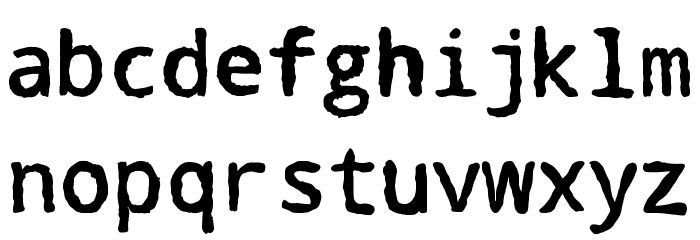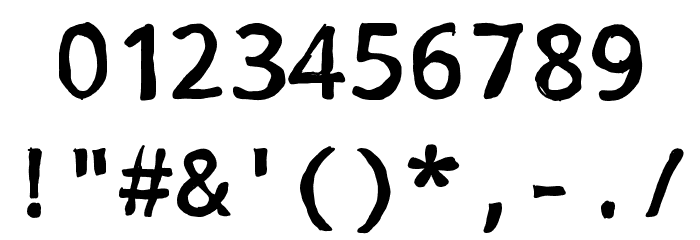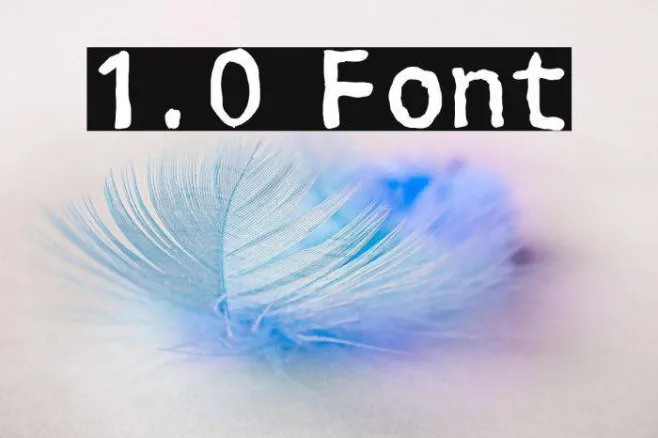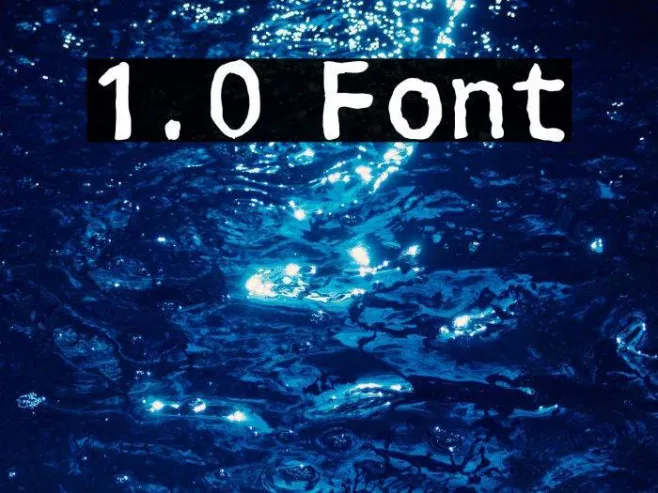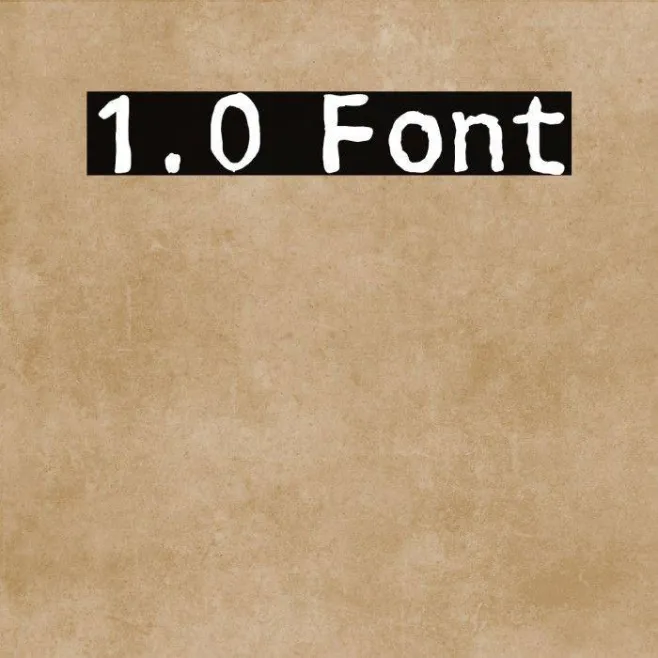
1.0 Font
This font features a playful and slightly irregular style, giving it a hand-drawn appearance. The characters are bold and have a casual, friendly feel, with uneven strokes that add to its charm. The uppercase and lowercase letters maintain a consistent style, while the numbers and special characters complement the overall look. This font is ideal for projects that require a personal touch or a creative, informal vibe. Its unique character shapes make it stand out, while still being legible and versatile.
A playful, hand-drawn style font with bold, irregular strokes.
- Proposed Projects: Ideal for children's books, casual invitations, creative posters, and playful branding.
- Overall Style: Casual, Playful
- Use Case: Headlines, Posters, Informal Text